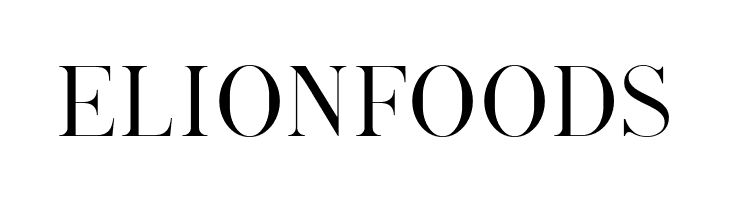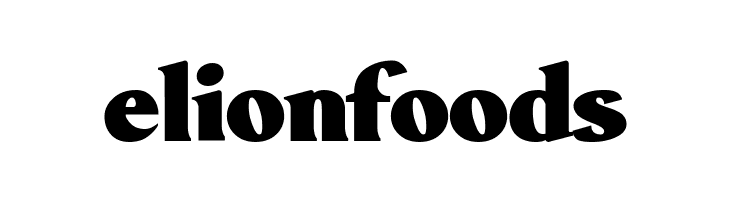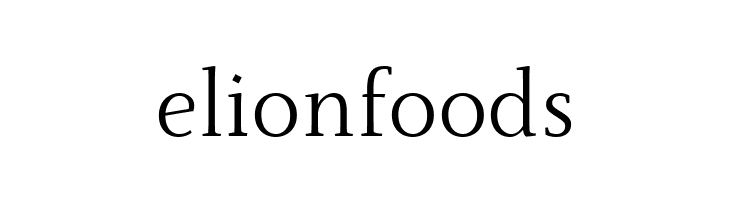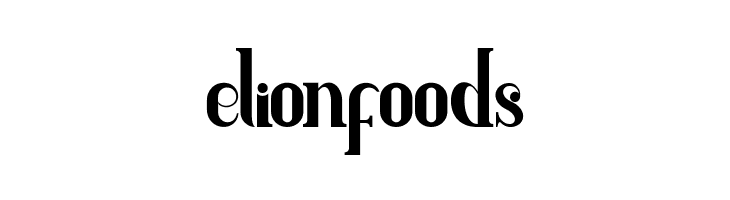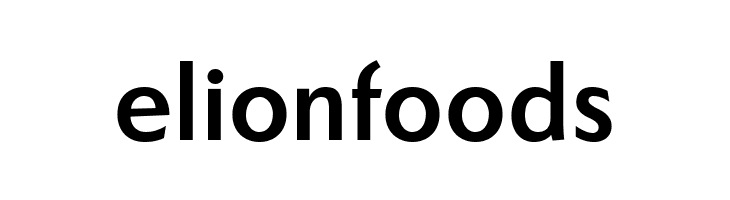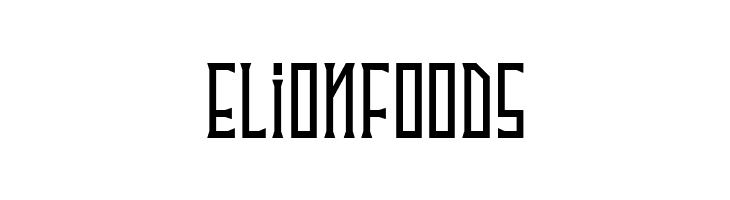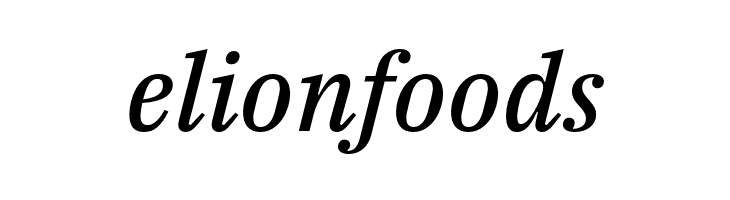
A classic serif font with high contrast and elegant, elongated strokes.
A bold, high-contrast serif font with dramatic, angular serifs.
A refined serif font with thin strokes and elegant curves, perfect for sophisticated designs.
A bold serif typeface with strong strokes and pronounced serifs, ideal for impactful headlines.
A classic serif font with elegant, refined letterforms and sharp serifs.
A classic serif font with a modern, elegant style and pronounced serifs.
A bold, vintage serif font with dramatic serifs and modern flair.
A bold, modern sans-serif font with clean lines and excellent readability.
A bold, angular serif font with a modern and geometric style.
A sophisticated serif font with an elegant italic style and moderate contrast.